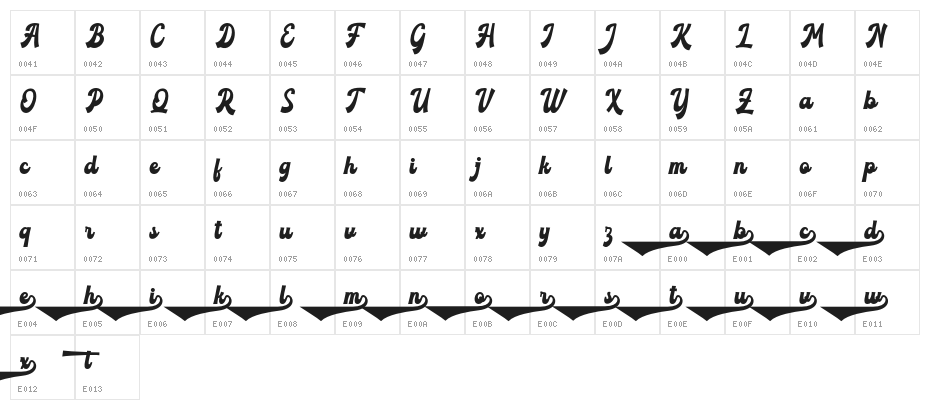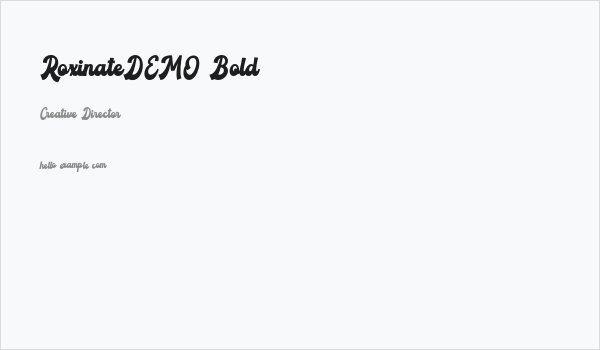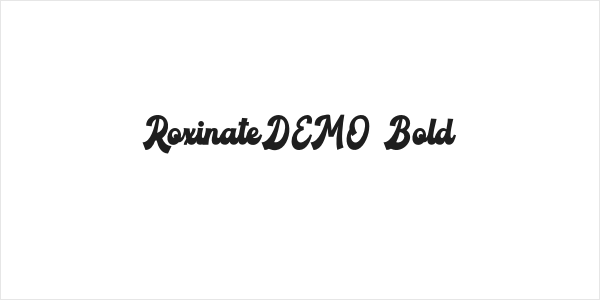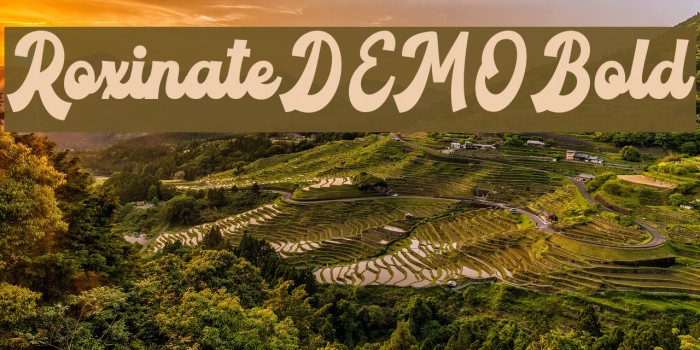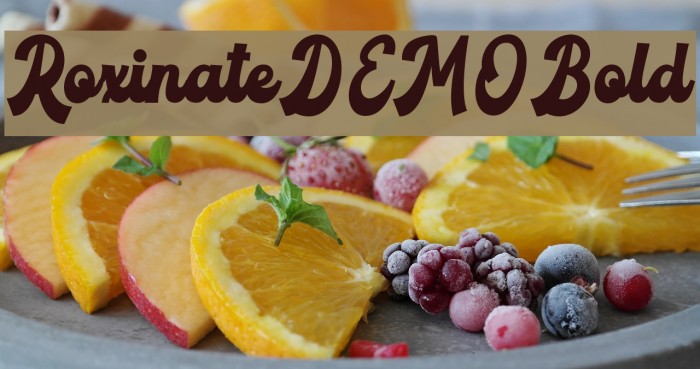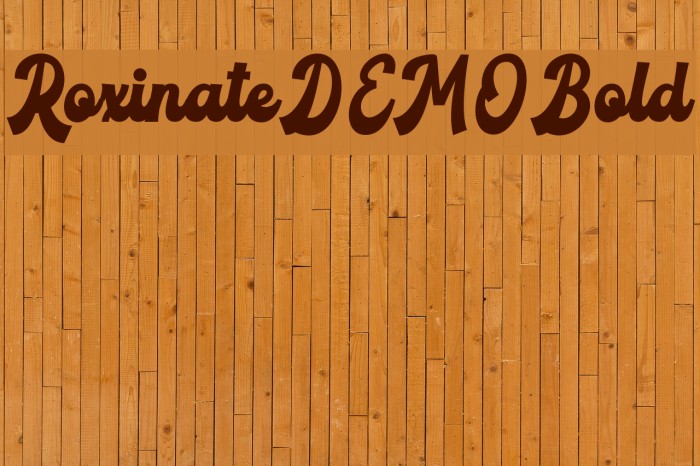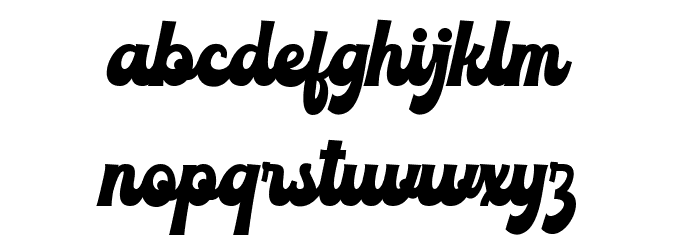
RoxinateDEMO-Bold Font
RoxinateDEMO-Bold Description
This font features a bold and dynamic script style with a strong presence. The uppercase letters are characterized by their sweeping curves and dramatic flourishes, giving them a sense of movement and energy. The lowercase letters maintain a consistent flow, with smooth connections between characters, enhancing readability while preserving the decorative nature. The overall design is reminiscent of vintage signage or retro branding, making it ideal for projects that require a touch of nostalgia or a bold statement. The font's thick strokes and high contrast between thick and thin lines contribute to its striking appearance.
| Proposed Projects | This font is perfect for branding, logos, posters, and packaging designs that require a bold, retro aesthetic. |